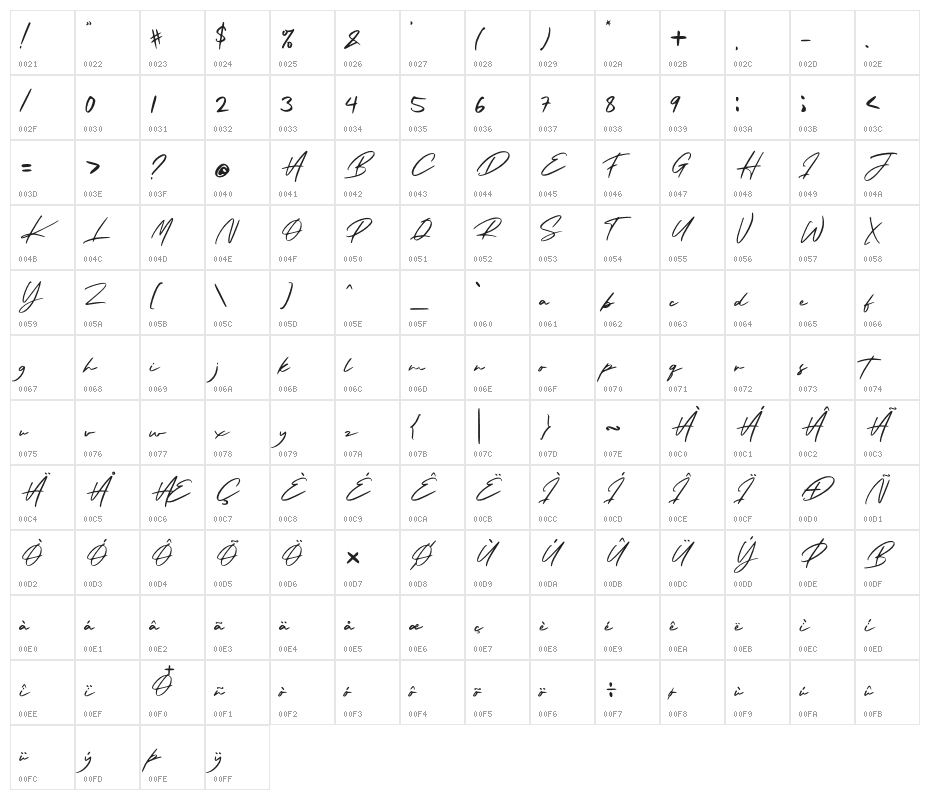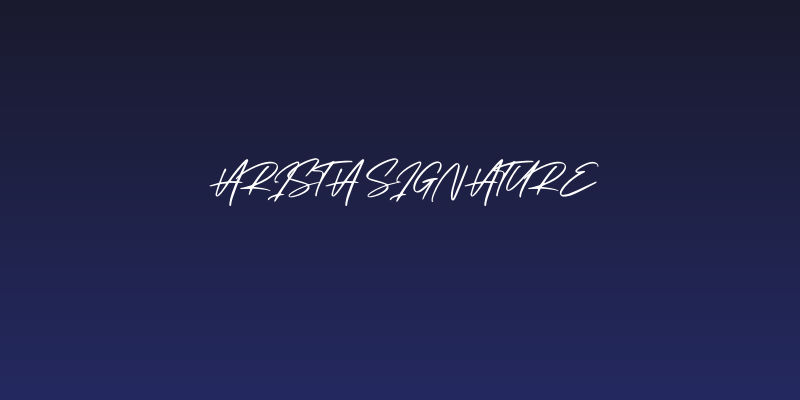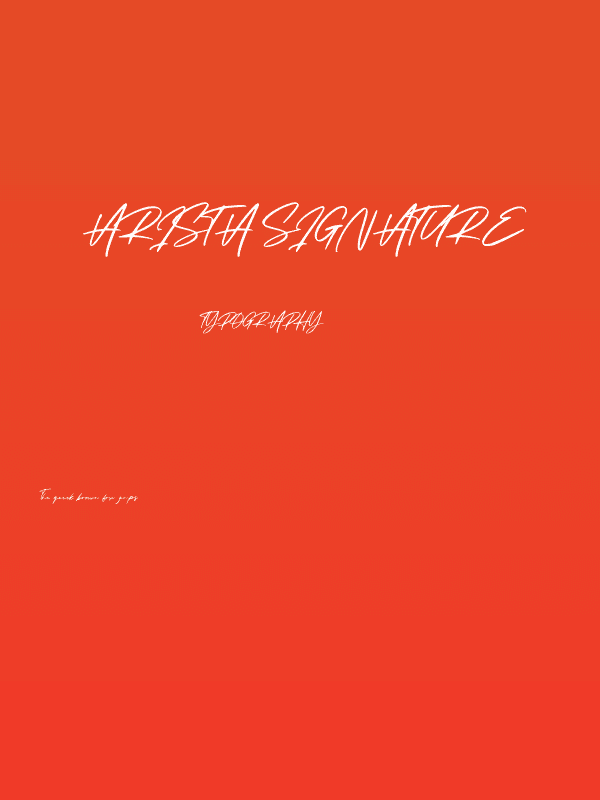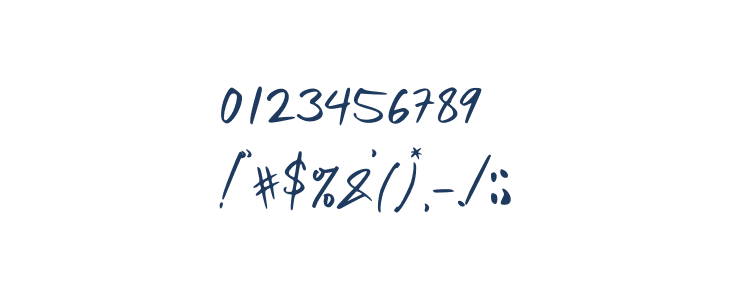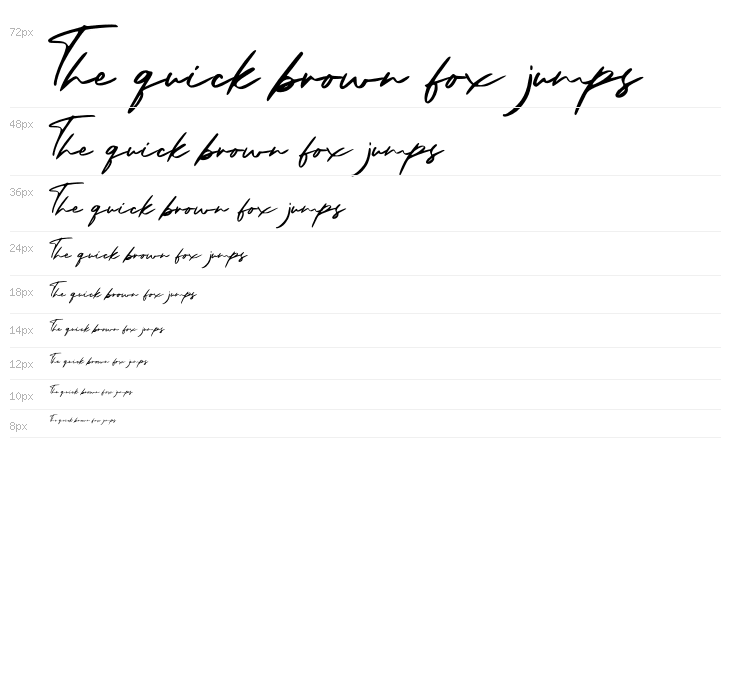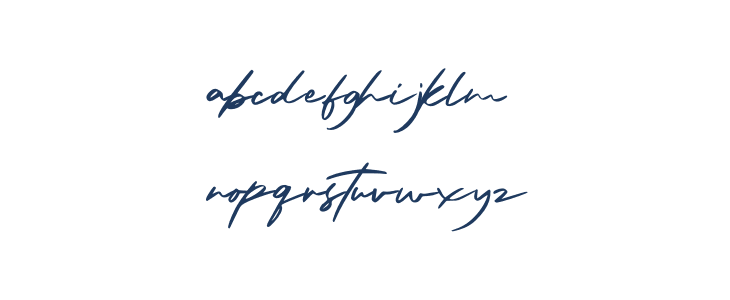
Arista Signature Font
Arista Signature Description
This font exudes a modern and elegant script style, characterized by its fluid, cursive strokes that mimic natural handwriting. The letters are interconnected, creating a seamless flow that is both sophisticated and approachable. The uppercase letters are bold and prominent, while the lowercase letters maintain a consistent rhythm, enhancing readability. The numerals and special characters are crafted with the same attention to detail, ensuring a cohesive look across all elements. This font is ideal for projects that require a personal touch, such as invitations, branding, or any design that benefits from a handwritten aesthetic.
| Proposed Projects | Ideal for wedding invitations, personal branding, greeting cards, and elegant packaging designs. |